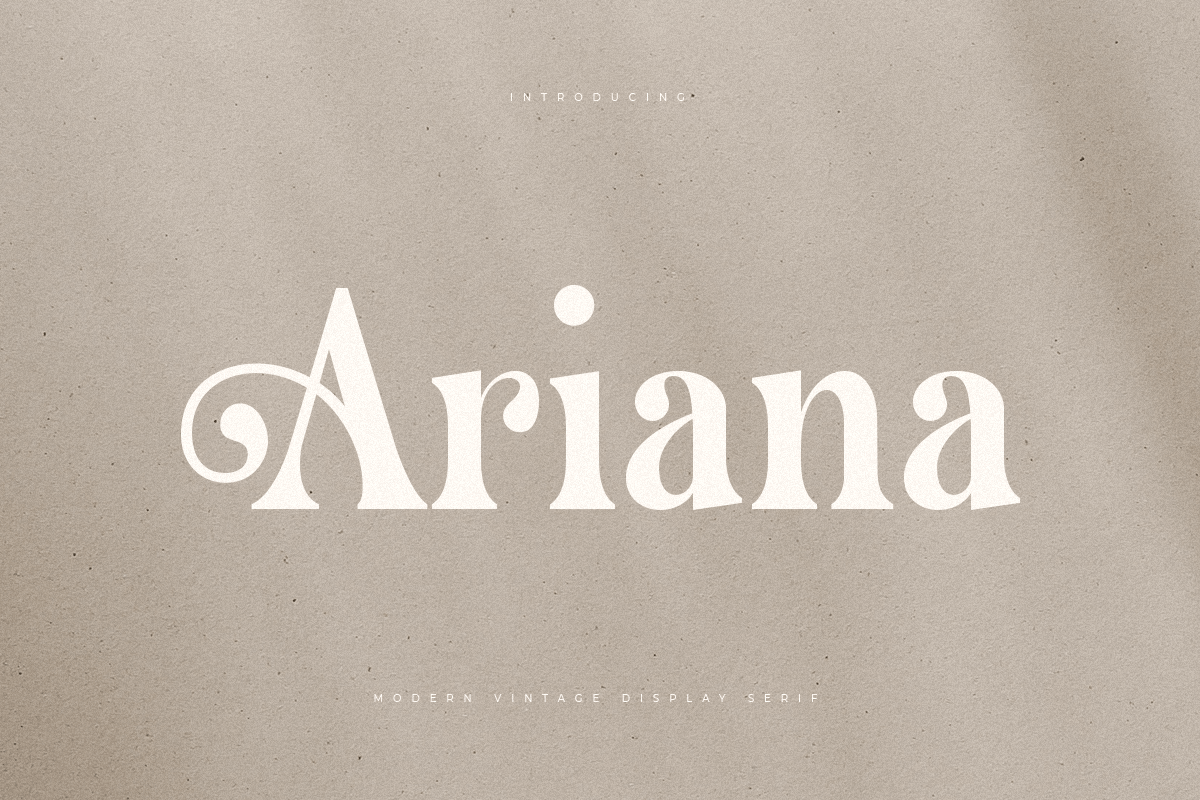
Ariana
-Modern Vintage Display Serif
A Modern Vintage font that we created special for elegant branding needs, with unique shape will be ready to add value of your brand. It so nice to leverage designer or product owner that need solutions to make their design look more stylish and modern. And specially for this font, We prepared any characters to help you create unlimited variations for your creative needs.